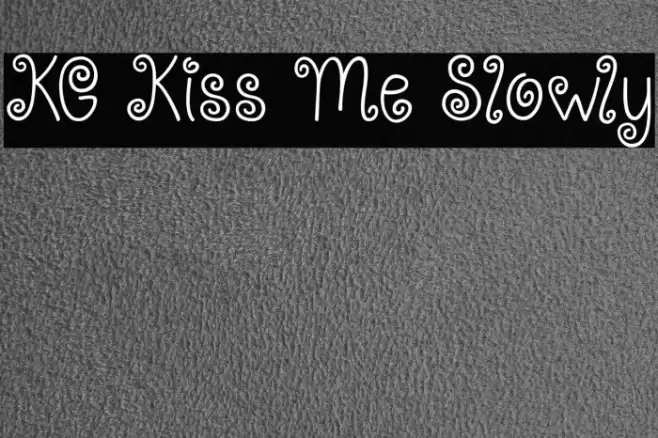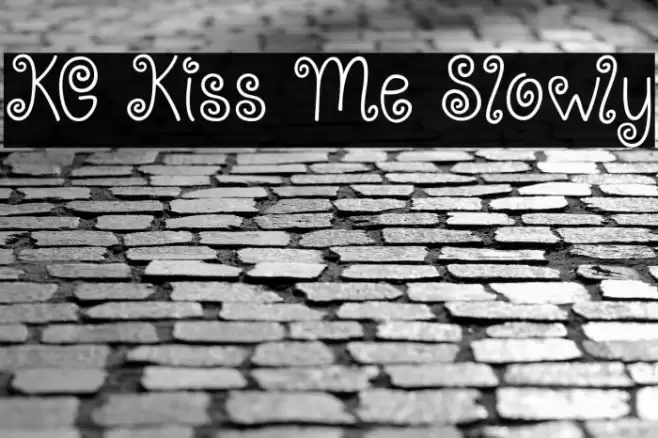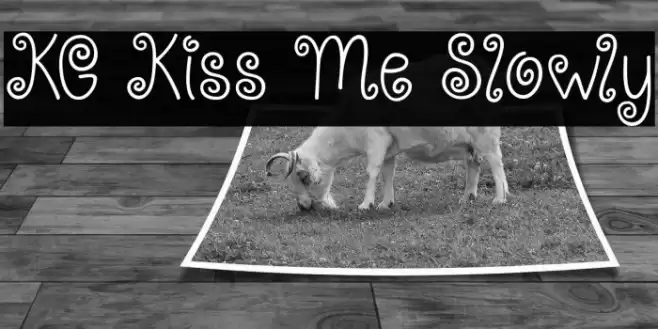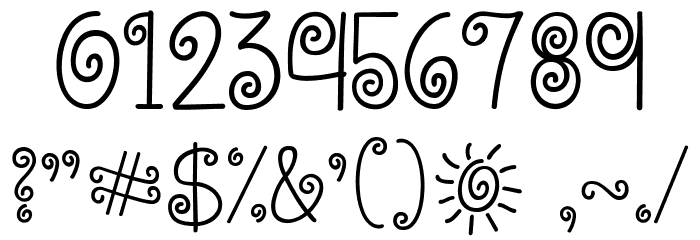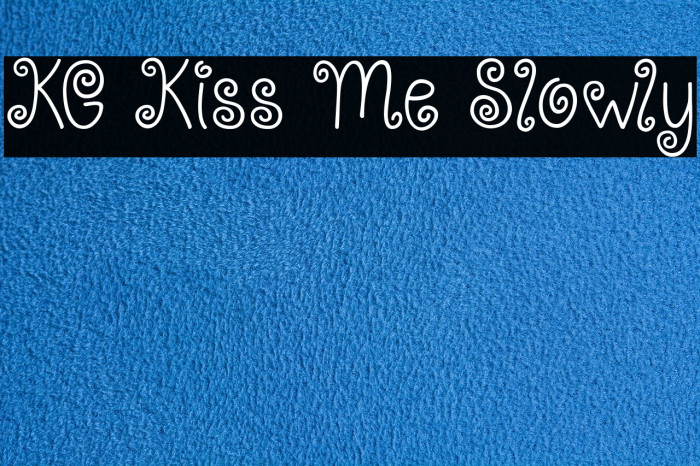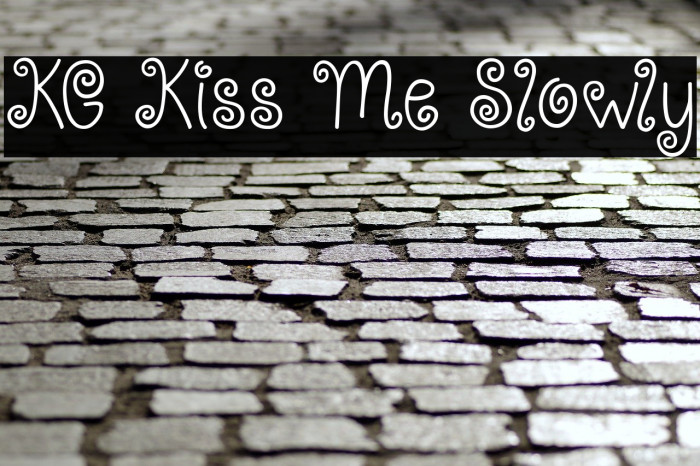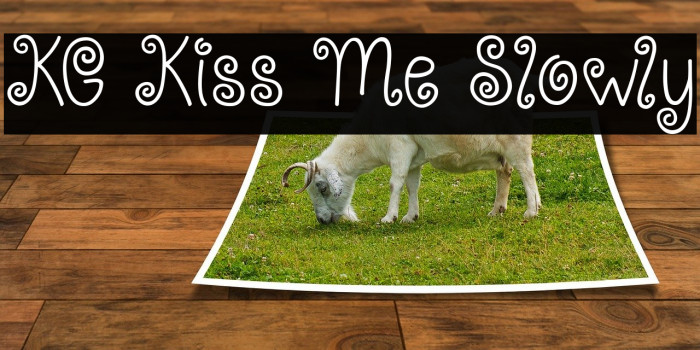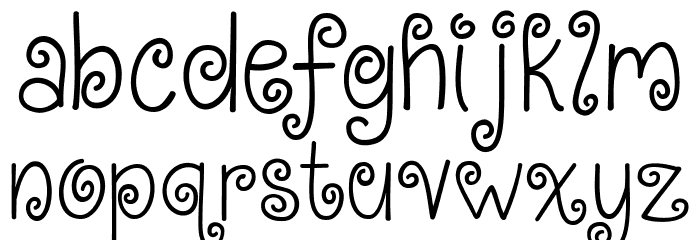
KG Kiss Me Slowly Font
KG Kiss Me Slowly Description
This playful and whimsical font features a unique, curly design with decorative swirls on each character. The uppercase and lowercase letters maintain a consistent style, with rounded edges and a hand-drawn feel. Numbers and special characters are equally adorned with curls and loops, adding to the font's charm. The overall appearance is light-hearted and fun, making it ideal for creative projects. The font's distinctiveness lies in its decorative elements, which give it a lively and animated personality.
A whimsical, curly font with decorative swirls and a playful style from Curly fonts.
- Proposed Projects: Ideal for children's books, greeting cards, playful branding, and creative invitations.
- Overall Style: Playful, Whimsical, Decorative
- Use Case: Headlines, Logos, Creative projects